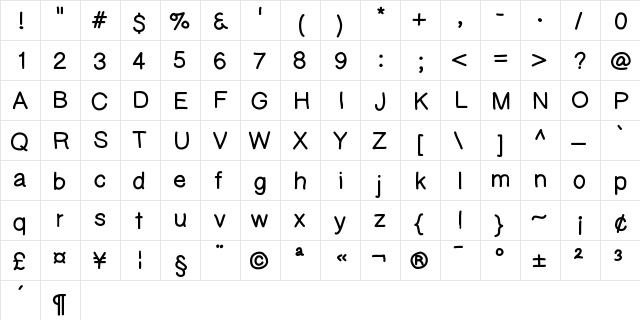
KaoriGelBold Bold
Design Context for KaoriGelBold Typeface
KaoriGelBold is a composed and adaptable typeface that performs quietly and consistently across a wide range of design contexts. Its bold stroke weight gives it real presence on the page.
Pro Tip: Use KaoriGelBold in both headline and body roles to test its range before committing to a single application.